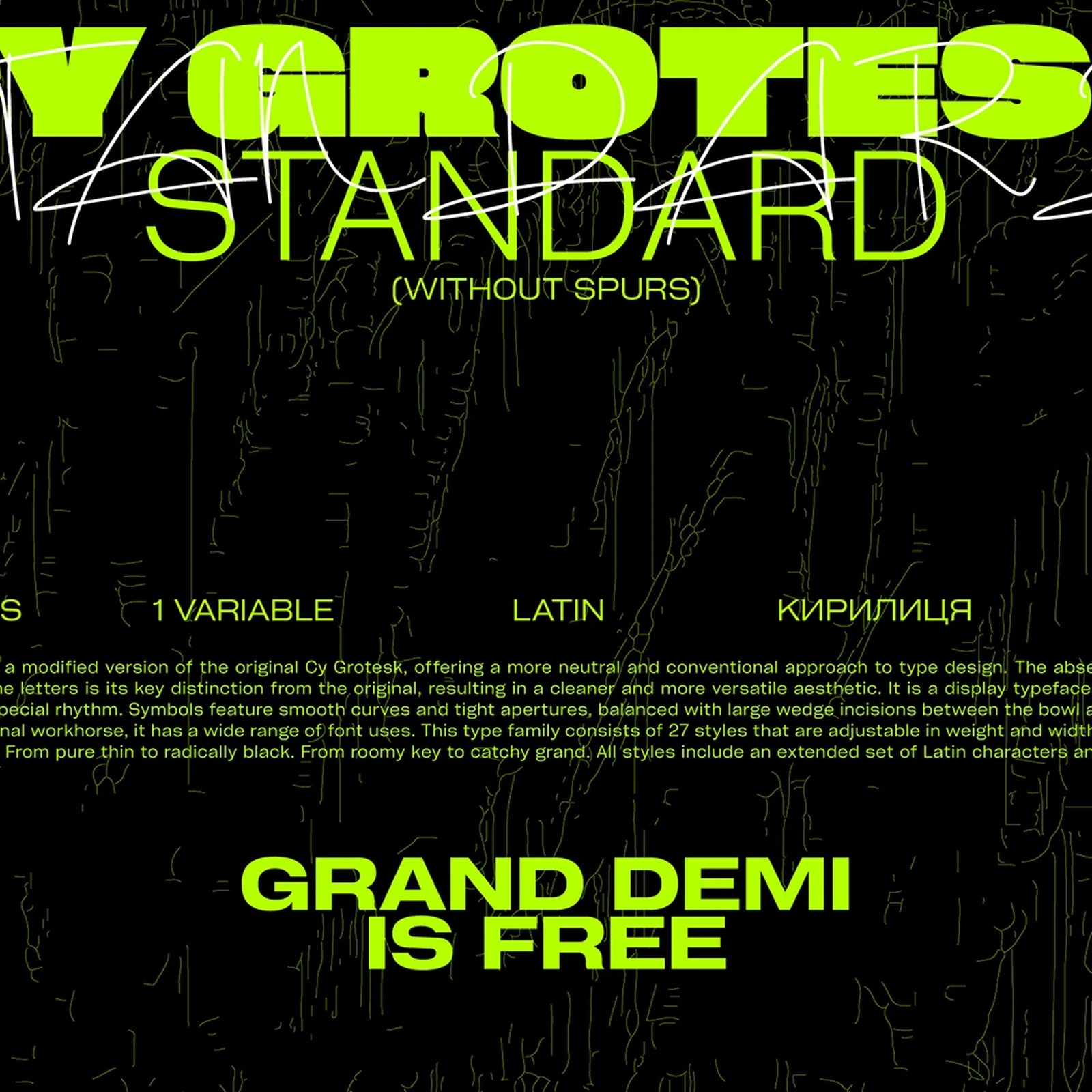
CY Grotesk STD is a free grotesk typeface by Maksym Kobuzan with Latin and Cyrillic support, clean geometric forms, and multiple weights for display use.
Kobuzan, a type designer based in Kyiv, Ukraine, released the CY Grotesk STD family on Behance in April 2025. The project sits within a long tradition of neutral grotesque sans-serif design — but it earns its place by doing two things at once: delivering a grotesk typeface that feels contemporary without leaning into stylistic excess, and extending that system fully into Cyrillic. Both scripts receive equal typographic care, which is still far from standard in independent type releases.
The family draws from the visual logic of mid-century European grotesques. Stroke widths stay consistent across characters. Terminals cut cleanly. Apertures open enough to maintain legibility at small sizes without losing the density that makes grotesques useful for headline work. The geometry is rational — this is not a humanist sans pretending to be neutral. It is a grotesk typeface that commits to its construction and holds steady across the character set.
CY Grotesk STD: Specimen Design and Grotesk Typeface Details
The Behance presentation by Maksym Kobuzan shows the grotesk typeface across several specimen layouts, each one reinforcing specific aspects of the design. White type set against dark backgrounds highlights stroke uniformity in the uppercase. Long-form setting at text sizes demonstrates how the vertical rhythm holds across both Latin and Cyrillic paragraphs. Weight variation is presented through stacked display lines, making the mass difference between styles legible at a glance.
The Cyrillic characters show no sign of compromise. Where many Latinized Cyrillic designs reduce Slavic letterforms to retrofitted adaptations, this grotesk typeface treats the Cyrillic block as a first-class design concern. The characteristic forms — Д, Ж, Щ, Ф — are constructed with the same geometric discipline as their Latin counterparts. The result is a unified typeface that works across both writing systems without a visible seam.
The release is straightforward in the best sense: well-executed, clearly documented, and genuinely useful. A grotesk typeface with this level of Cyrillic support, offered at zero cost for a full weight, gives designers working in both scripts a real option that does not require cobbling together separate solutions.